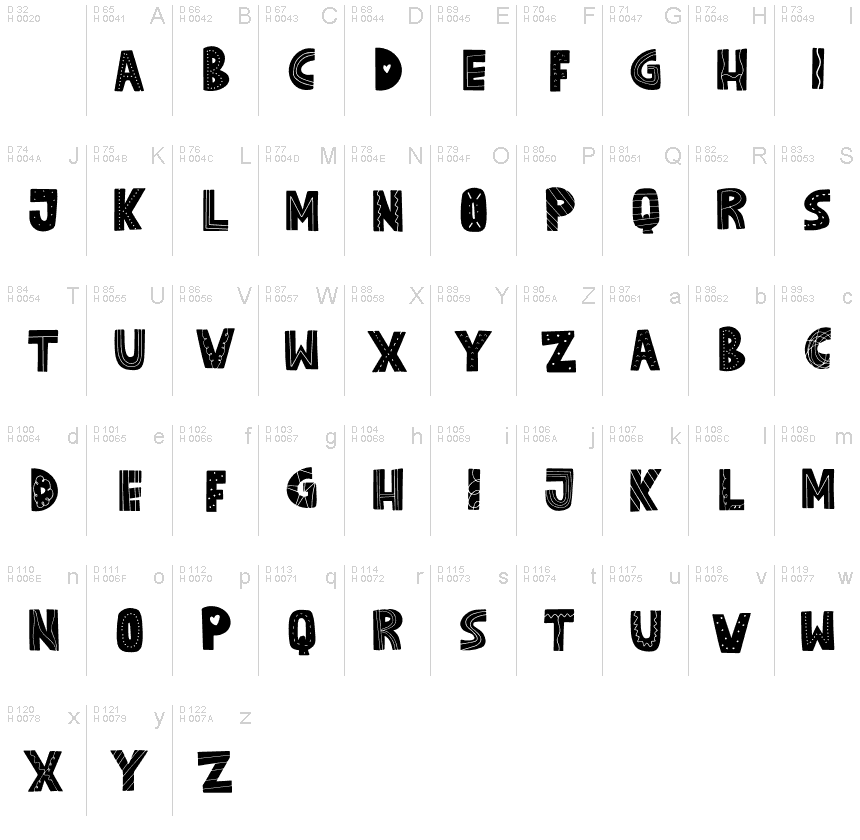
PARTY SIZE
Party Size, crafted by The Docallisme - Amry Al Mursalaat, is a display font that exudes boldness and festivity. Its decorative style is characterized by strong, playful lines that command attention, making it an ideal choice for when your design demands liveliness and impact.
The bold weight of Party Size ensures it stands out in any creative context, from celebratory banners to eye-catching headlines. The font's aesthetic strikes a balance between whimsical flair and structured solidity—features that contribute to its versatility in various design applications.
Whether you're aiming to inject a sense of excitement into event invitations or looking to make promotional materials pop with personality, Party Size's distinct presence can transform the mundane into the extraordinary. With its unique charm and robust form, this font holds the potential to be a go-to asset for designers seeking to make a statement.